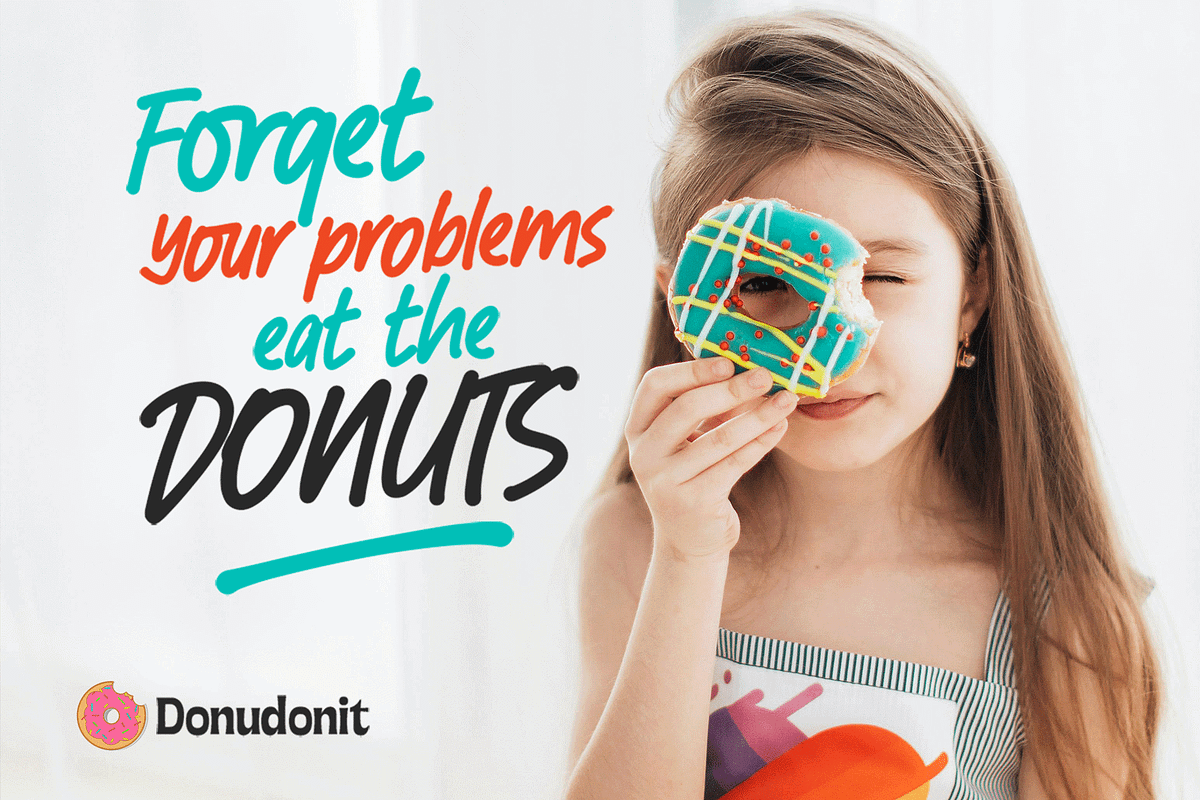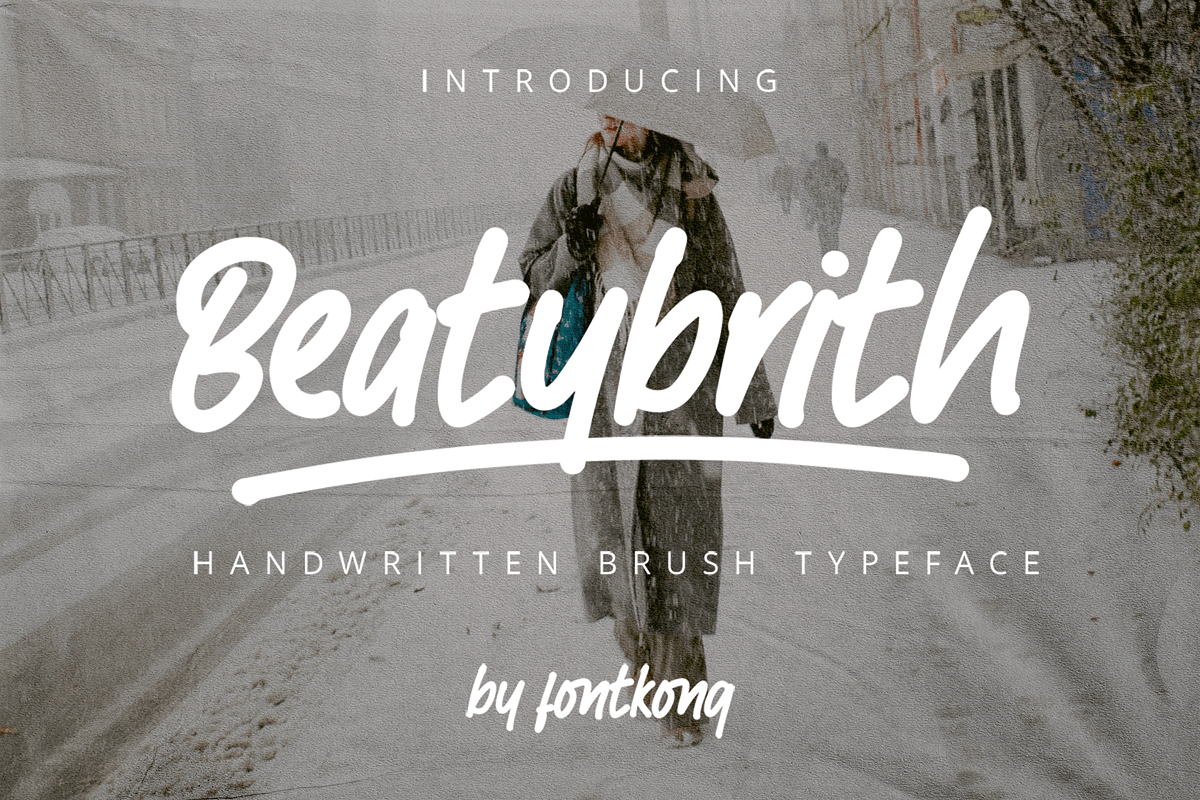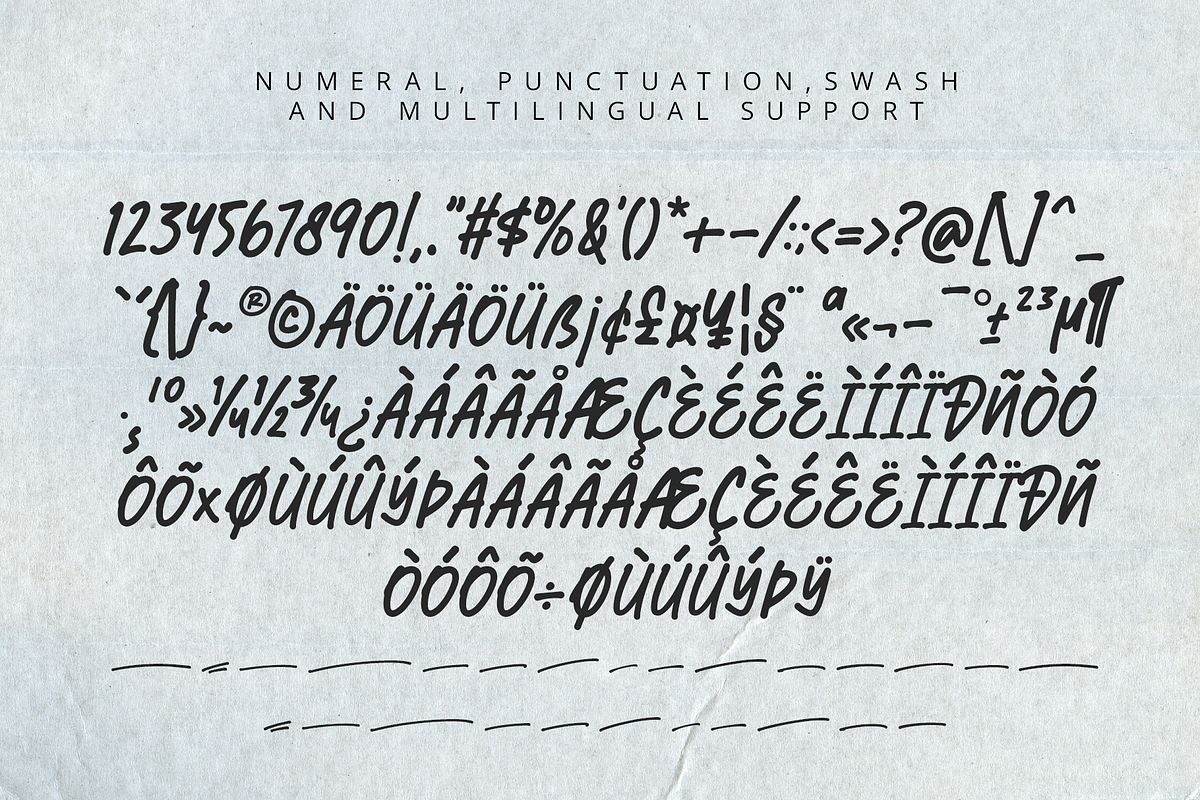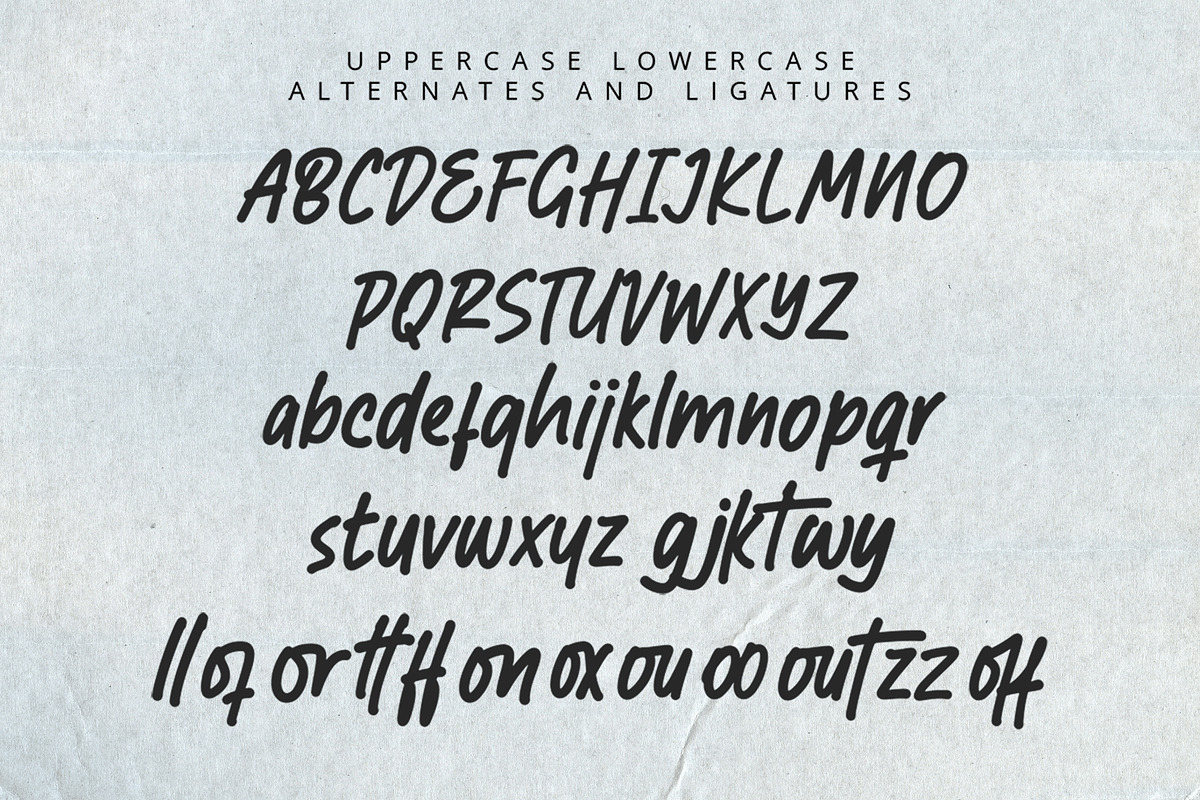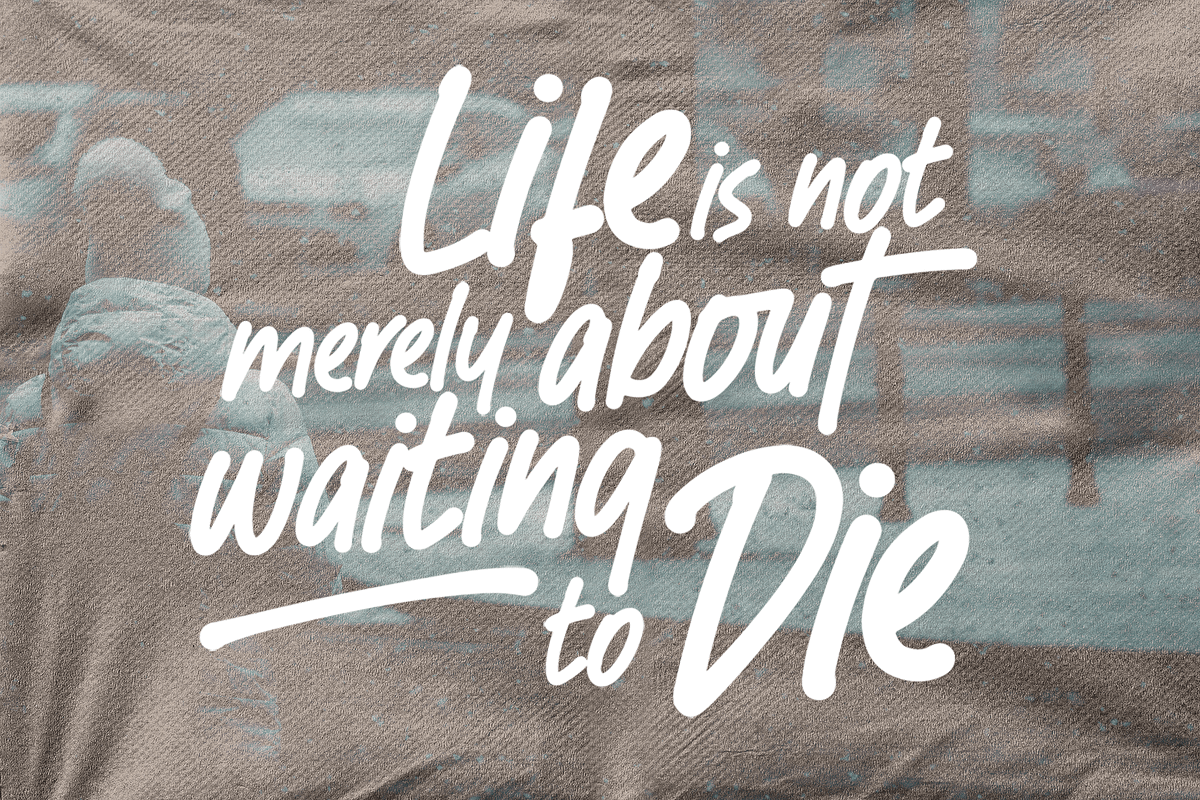
Beatybrith–HandwrittenBrushTypeface
Beatybrith – A Handwritten Brush Typeface
Beatybrith is a dynamic handwritten brush typeface that captures the raw energy of hand-painted strokes. With its bold, expressive lettering and natural brush textures, this font brings an artistic and authentic feel to any project.
Perfect for branding, posters, apparel, social media graphics, and packaging, Beatybrith delivers a handcrafted aesthetic with a modern edge. Its fluid strokes and organic flow make it ideal for designers seeking a unique, attention-grabbing font with personality.
This typeface includes uppercase and lowercase characters, numbers, punctuation, and multilingual support, making it versatile for various design applications. Elevate your creative projects with the bold and expressive style of Beatybrith!